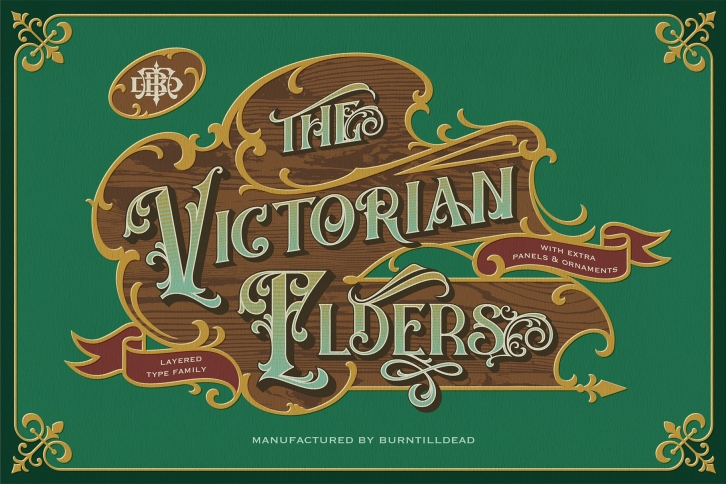
The Victorian Elders is a great font that was designed by Burntilldead. Imagine the amount of combinations you can create using this font! The archive is 14.75 MB and it was released on March 3, 2022. The Victorian Elders looks beautiful on wedding invitations, greeting cards, logos, posters, labels, t-shirt designs, logos, business cards and is perfect for use in ink or watercolor works, fashion, magazines, packaging and food menus, children's books and more!